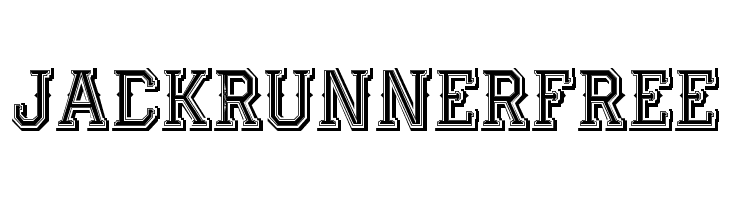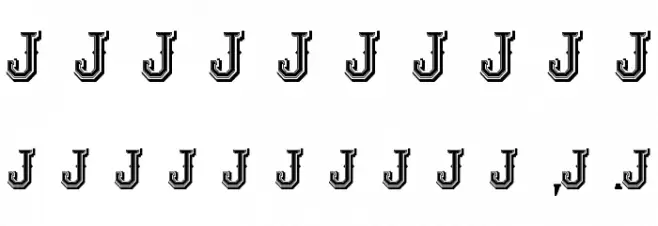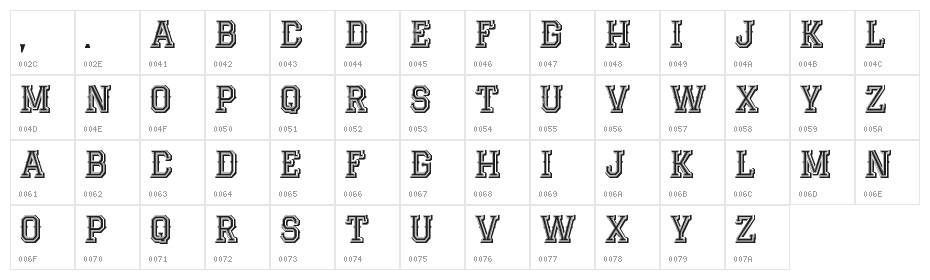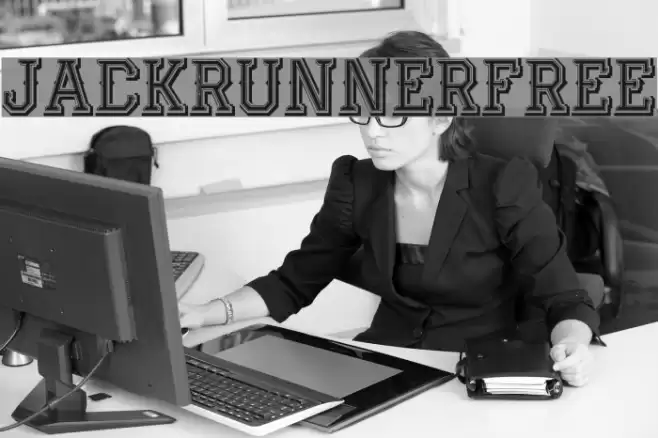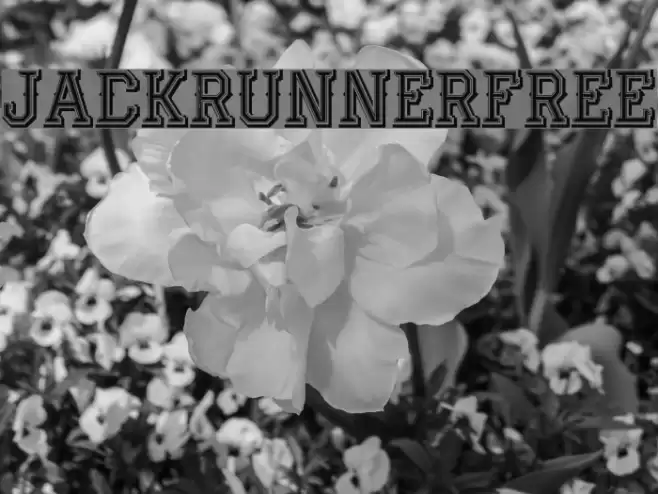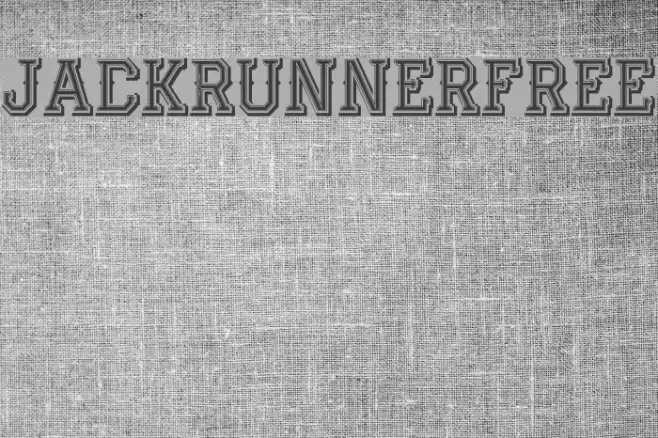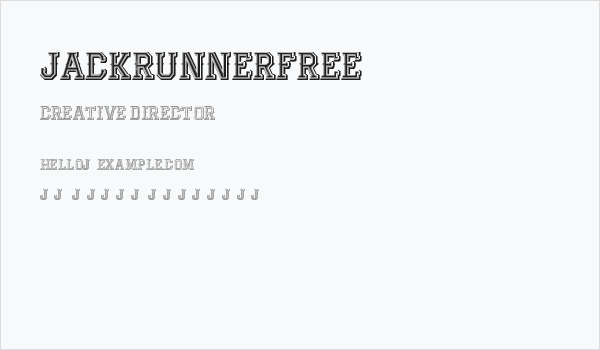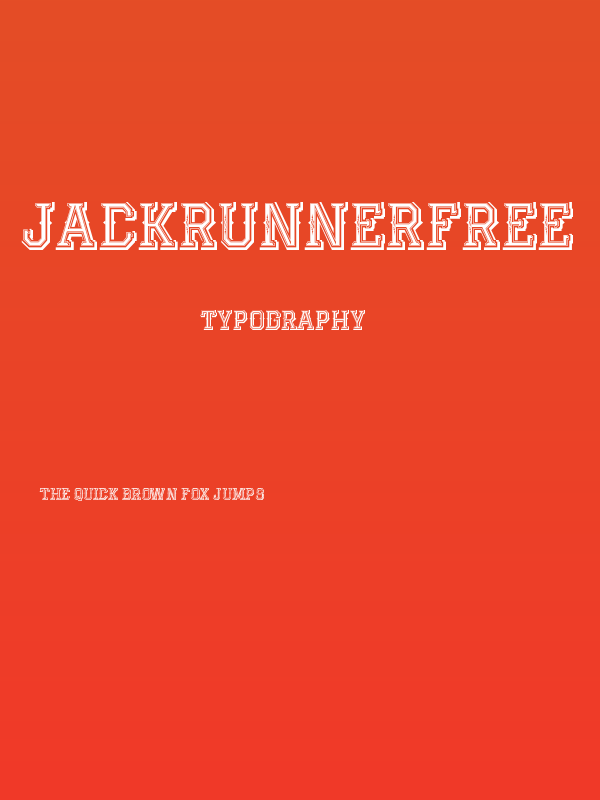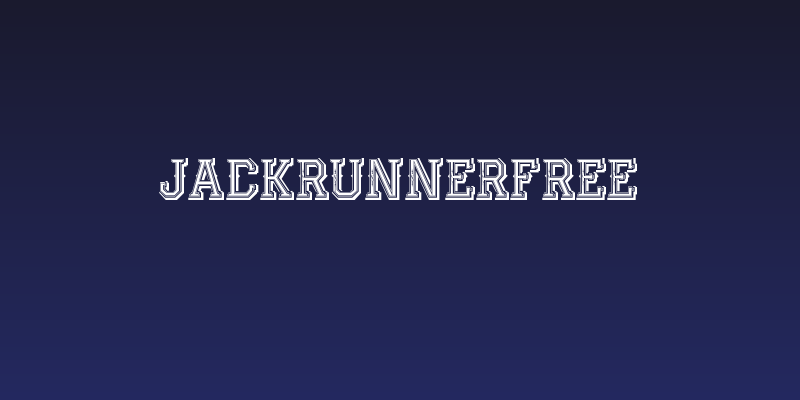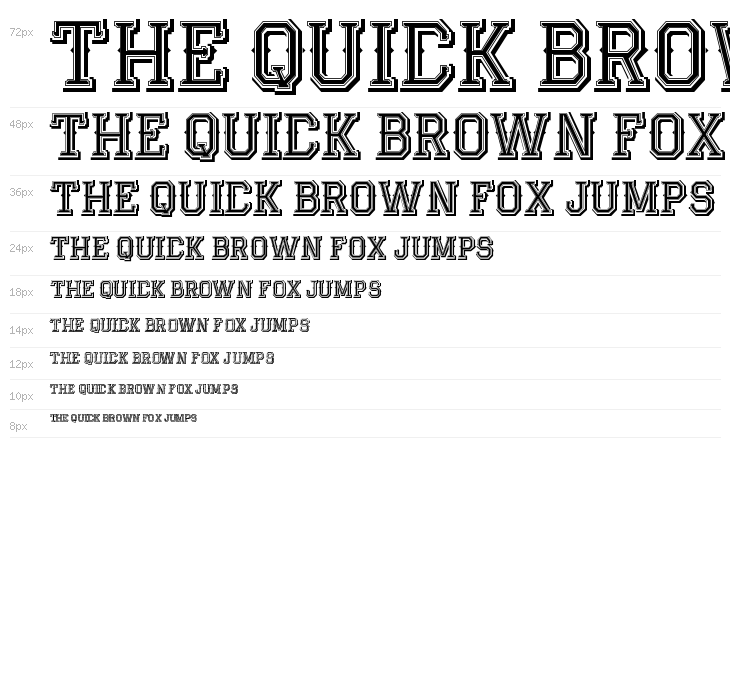
JackRunnerFree Font
JackRunnerFree Description
This font features a bold, decorative style with intricate detailing and a three-dimensional effect. The characters are outlined with multiple layers, creating a shadowed appearance that adds depth and complexity. The uppercase letters are prominent and commanding, making them ideal for attention-grabbing designs. The font's structure is geometric, with sharp angles and clean lines that convey a sense of strength and modernity. The repeated use of the letter 'J' in various sizes showcases the font's versatility and adaptability to different design needs. Its unique style makes it suitable for projects that require a distinctive and memorable typeface.
| Proposed Projects | Ideal for posters, logos, branding, and any design that requires a striking and memorable typeface. |